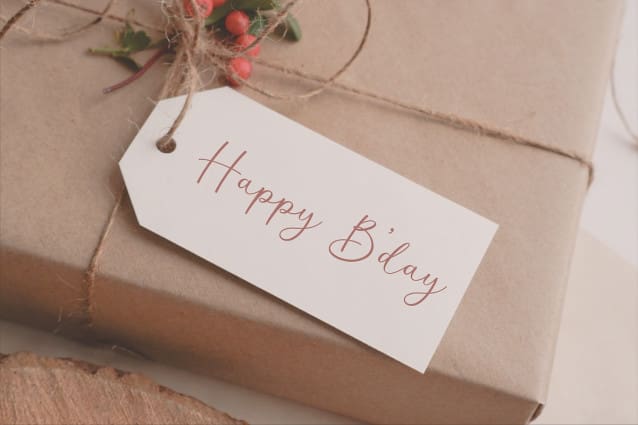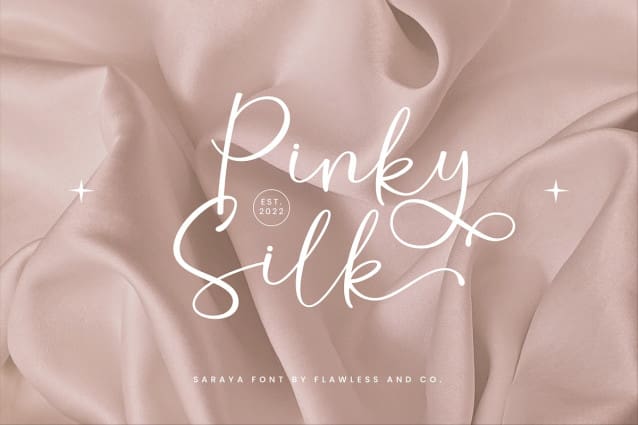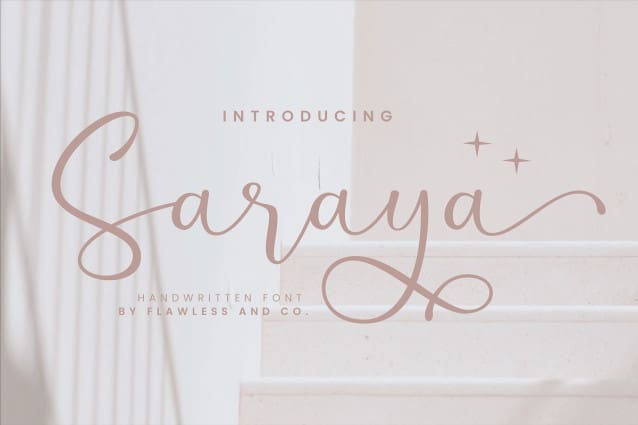
Saraya Script Font
Saraya Script Font is a beautiful script handwritten font that exudes sweetness and girly charm. Suitable for any graphic designs such as branding materials, t-shirt, print, business cards, logo, poster, t-shirt, photography, quotes .etc